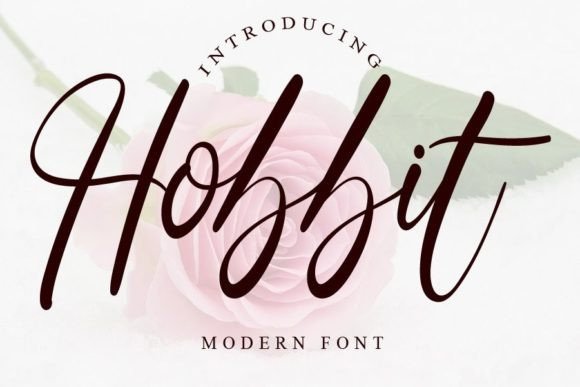
Step into a world of elegance and sophistication with Hobbit Font, a mesmerizing script font family that's guaranteed to elevate your designs to new heights. With its captivating curves and timeless charm, Hobbit Font is the perfect choice for those seeking a font that exudes both beauty and professionalism.
Crafted with the utmost precision and attention to detail by the renowned font designer ABBAsalam, Hobbit Font boasts a unique and distinctive style that sets it apart from the ordinary. Its flowing lines and elegant swashes add a touch of grace and sophistication to any project, making it ideal for a wide range of applications.
Whether you're a graphic designer creating eye-catching logos and branding materials, a web designer seeking a font that adds personality to your online creations, or a content creator looking to add a touch of charm to your social media posts and presentations, Hobbit Font is the perfect choice. Its versatility extends beyond the digital realm, as it's also well-suited for print projects such as wedding invitations, posters, and flyers.
But what truly sets Hobbit Font apart is its ability to transform your business and help it flourish. Its modern and sophisticated style conveys a sense of trust and credibility, making it the ideal choice for businesses looking to make a lasting impression on their customers. Whether you're a small business owner just starting out or a well-established enterprise looking to refresh its brand identity, Hobbit Font has the power to propel your business forward and set it on a path to success.
So why settle for ordinary fonts when you can embrace the extraordinary? Unleash the potential of Hobbit Font today and unlock a world of endless creative possibilities. Its beauty, versatility, and ability to elevate your business make it an investment that will pay dividends for years to come.